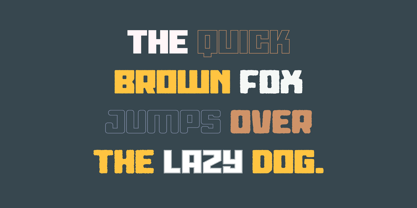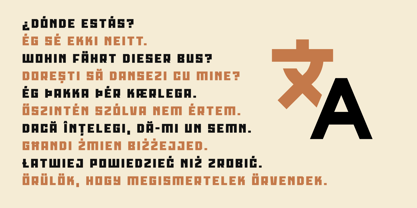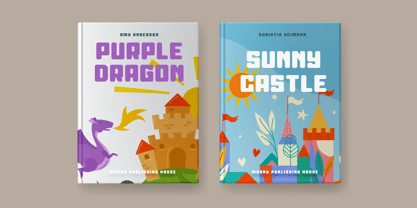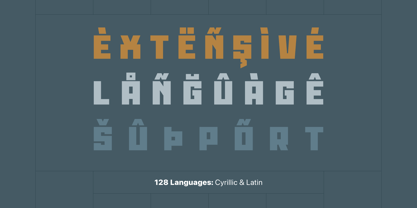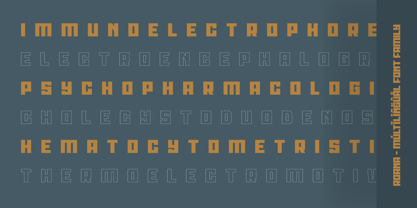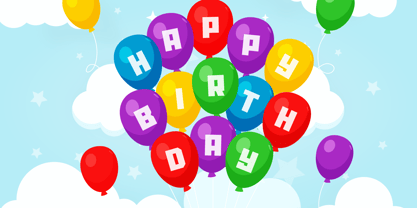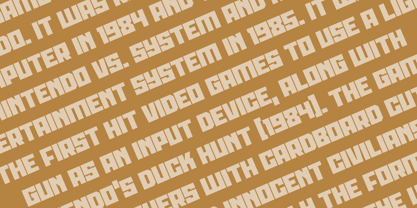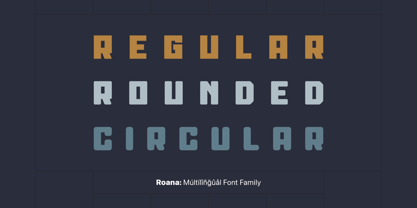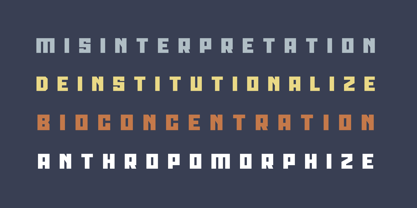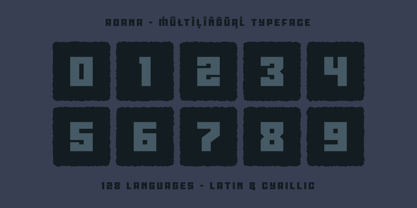
Roana
by AlperCakici
The Roana Font Family was designed by Alper Çakıcı and published by AlperCakici. Roana contains 112 styles and family package options. More about this family
Roana is a bold, expressive sans serif typeface designed to command attention. With a strong visual presence, it combines geometric structure and raw texture, making it highly versatile for modern design needs. At its core, Roana features a solid contemporary sans serif foundation available in Angular, Circular, and Rounded constructions. Each base style is meticulously crafted to ensure clarity, balance, and impact, whether utilized in headlines, branding, or display typography. What truly distinguishes Roana is its extensive array of stylistic variations. From clean and polished cuts like Regular, Italic, and Outline to highly expressive textures such as Brush, Chalk, Pencil, and Sketchy, Roana adapts effortlessly to diverse creative directions. The typeface also includes a wide selection of distressed styles, including Corroded, Cracked, Eroded, Fragmented, Grainy, Gritty, Rough, Worn, and Noise—ideal for projects that require a tactile, imperfect, or vintage-inspired aesthetic. With both upright and italic versions across nearly all styles, Roana offers exceptional flexibility and depth. Designers can seamlessly mix and match styles within a single project, creating layered, dynamic typography systems. Roana supports a broad range of Latin-based languages, making it suitable for international applications across branding, editorial, packaging, posters, and digital media. Whether you seek something clean and modern, rough and expressive, or artistically textured, Roana provides a comprehensive typographic toolkit for bold, impactful design.
Designers: Alper Çakıcı
Foundry: AlperCakici